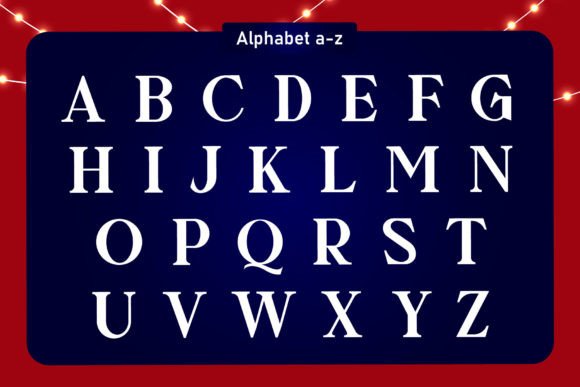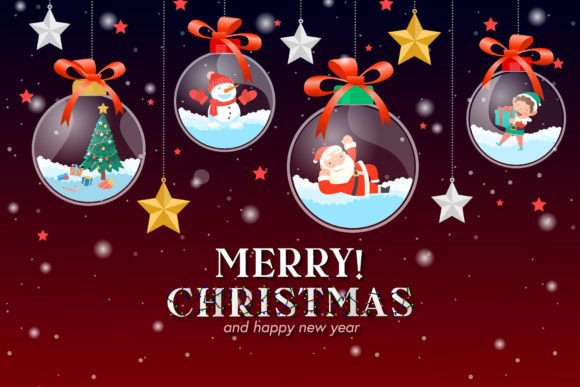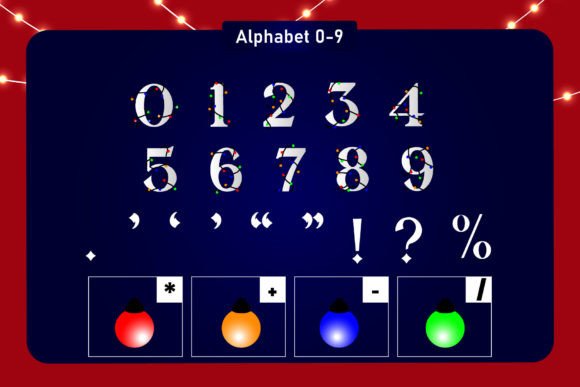
Lighting Font
About Lighting Font
Lighting is a captivating and vibrant color font that will bring a cool and fun touch to your designs. With its authentic feel, this font is perfect for various creative projects, including invitations, stationary art, social media posts, and greeting cards.
The unique style of Lighting font will make your designs truly stand out and grab attention. Its dynamic and energetic appearance adds a sense of excitement and liveliness to any piece of artwork. Whether you’re planning a birthday party, creating personalized stationery, or designing eye-catching social media graphics, Lighting font will add that extra spark to your projects.
Imagine the impact of using Lighting font for your invitations. The vibrant colors and playful lettering will instantly set the tone for a fun and memorable event. Your guests will be captivated by the unique design and be excited to attend.
When it comes to stationary art, Lighting font can bring your creations to life. From notepads and journals to letterheads and stickers, the font’s bold and energetic style will make your stationery pieces visually appealing and engaging.
For social media posts, Lighting font will help you create eye-catching graphics that stand out in feeds. Whether you’re sharing inspirational quotes, promoting a special offer, or announcing an event, the font’s vibrant colors and dynamic lettering will capture attention and encourage engagement.
Greeting cards are another area where Lighting font shines. Its playful and fun style is perfect for conveying warmth and joy in birthday cards, thank you cards, or any occasion that calls for a heartfelt message. Your cards will have a unique and memorable look with Lighting font.
Unleash your creativity and let Lighting font add that extra spark to your projects. Explore its vibrant colors, dynamic lettering, and unique style to create stunning and captivating designs. Enjoy the process of designing with Lighting font and watch how it makes your creative ideas truly stand out.